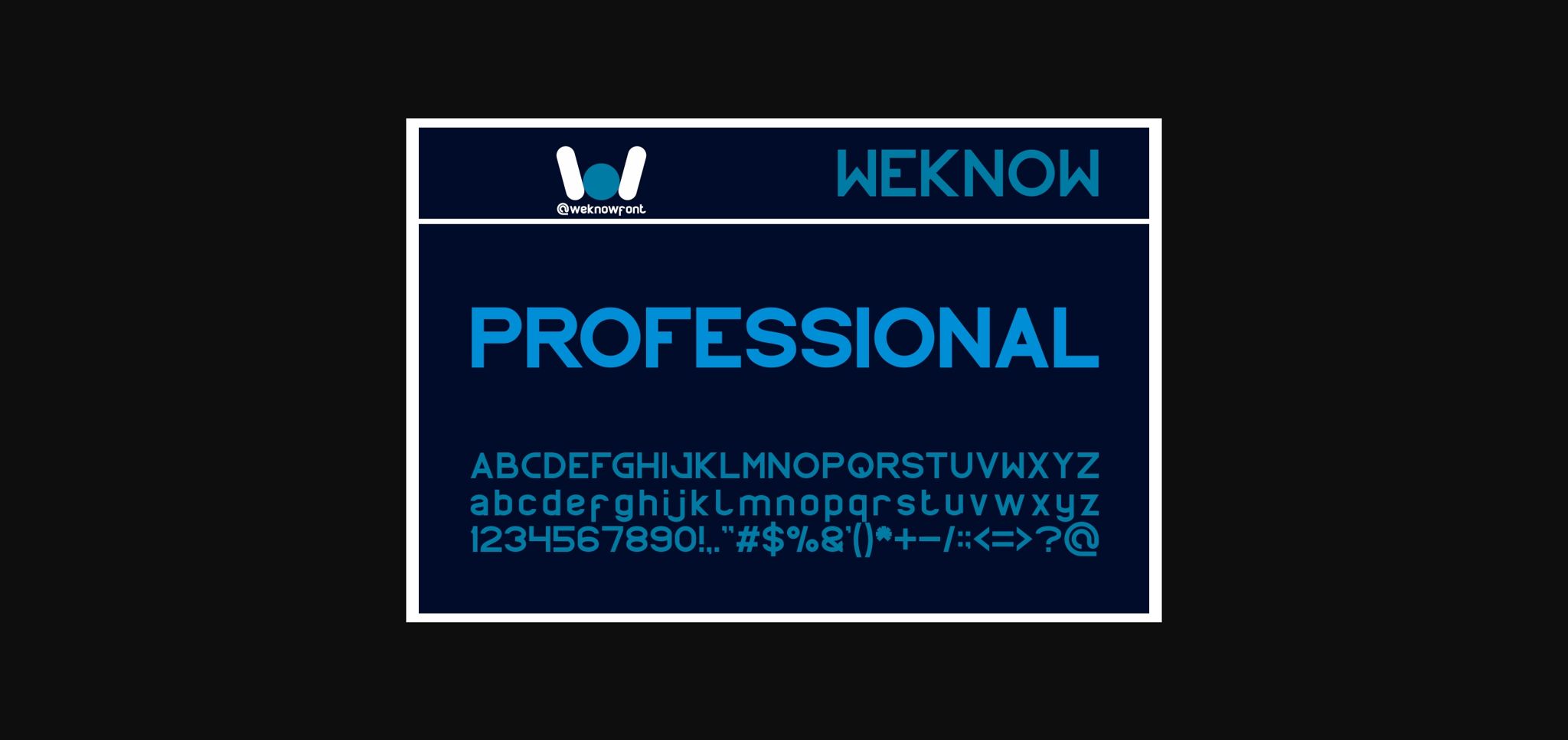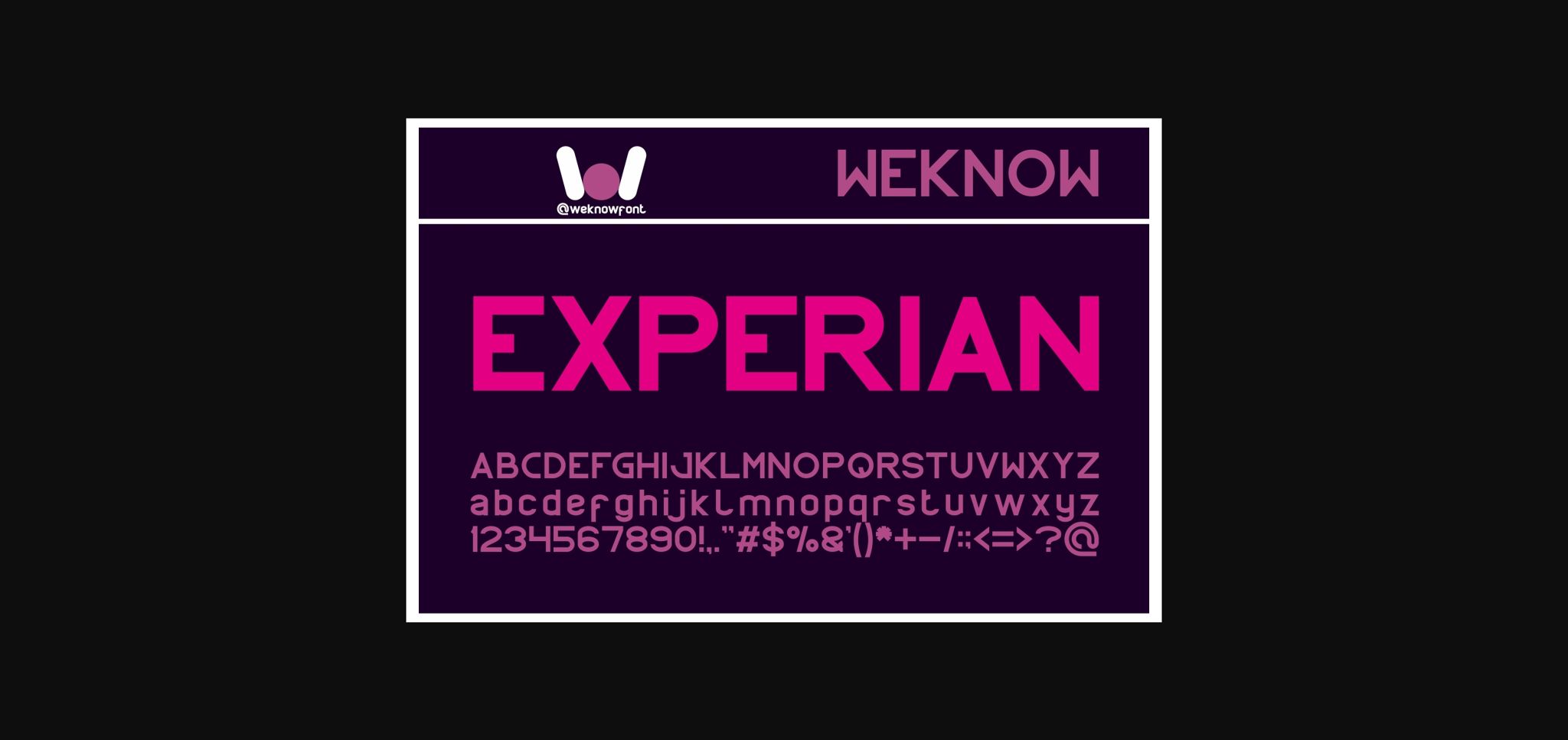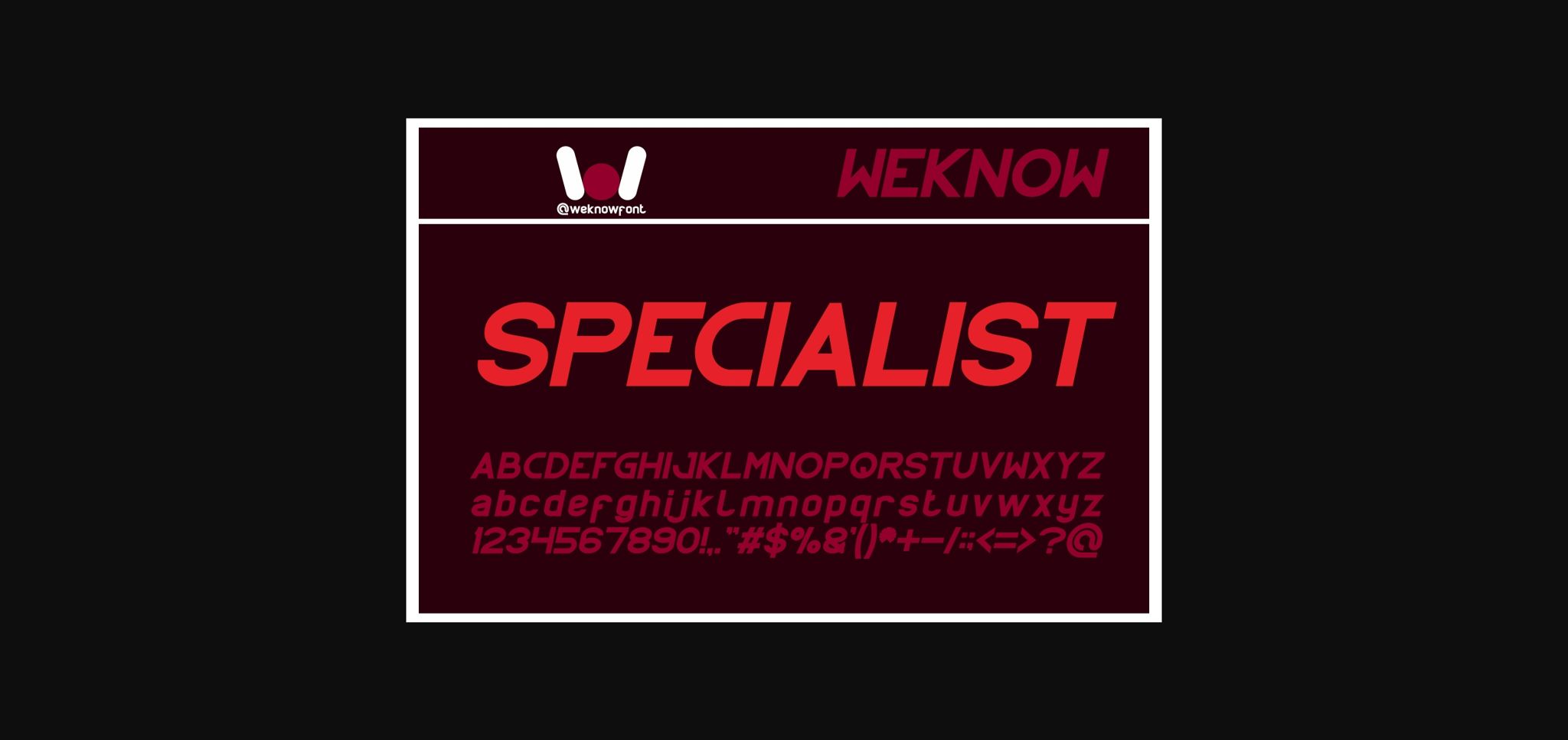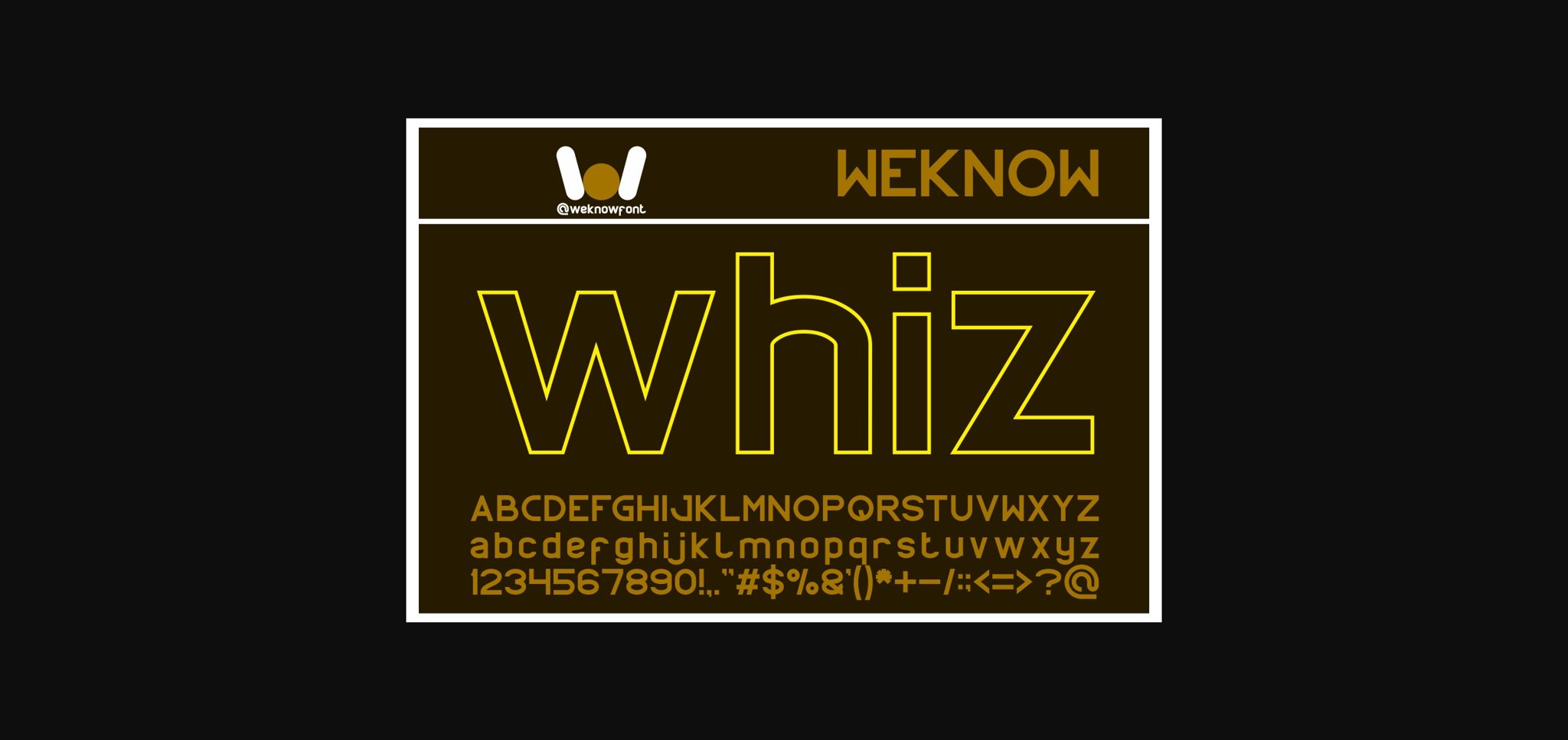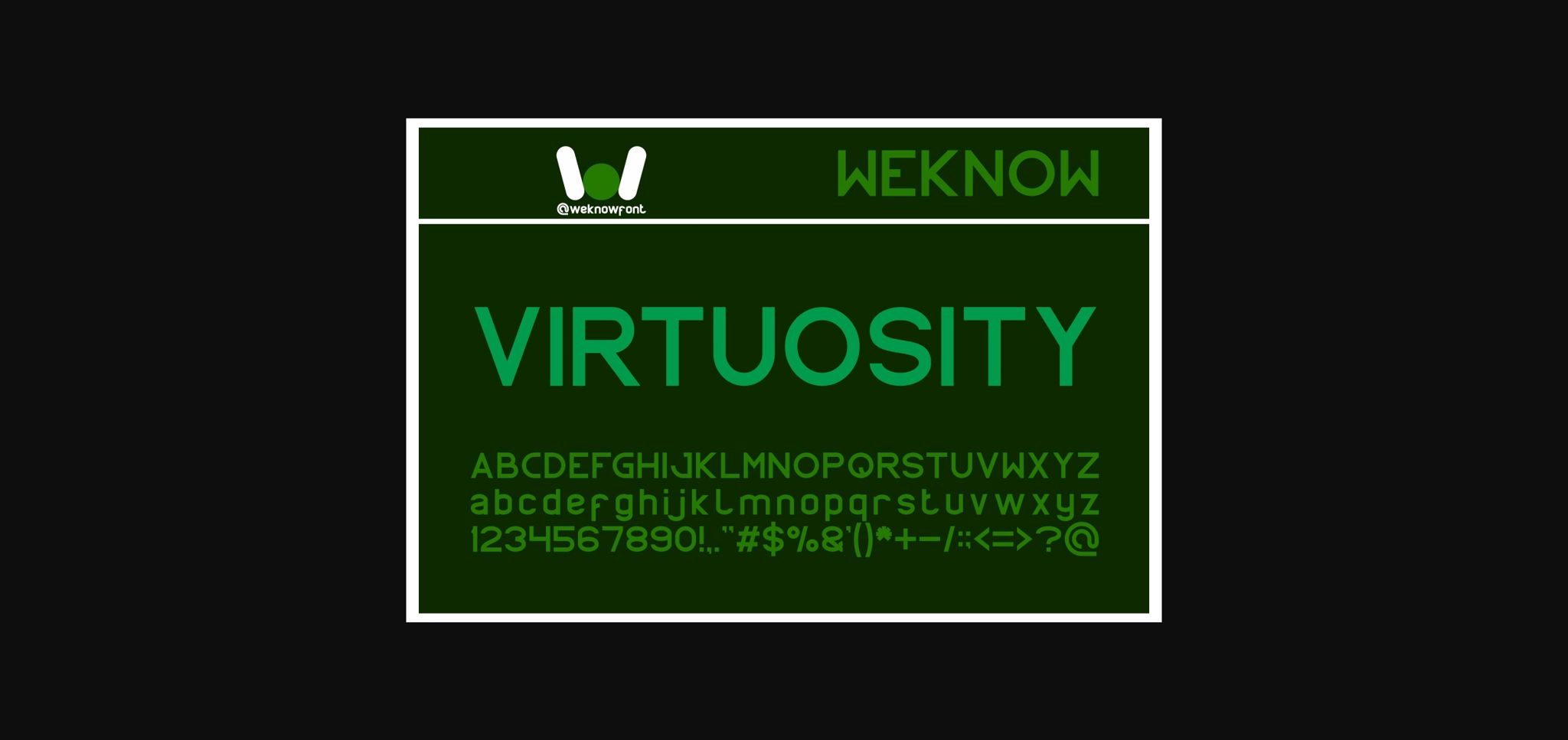
Professional Font
About Professional Font
Professional is a basic and clean sans serif font. It can easily be matched to an incredibly large set of projects, so add it to your creative ideas and notice how it makes them stand out!